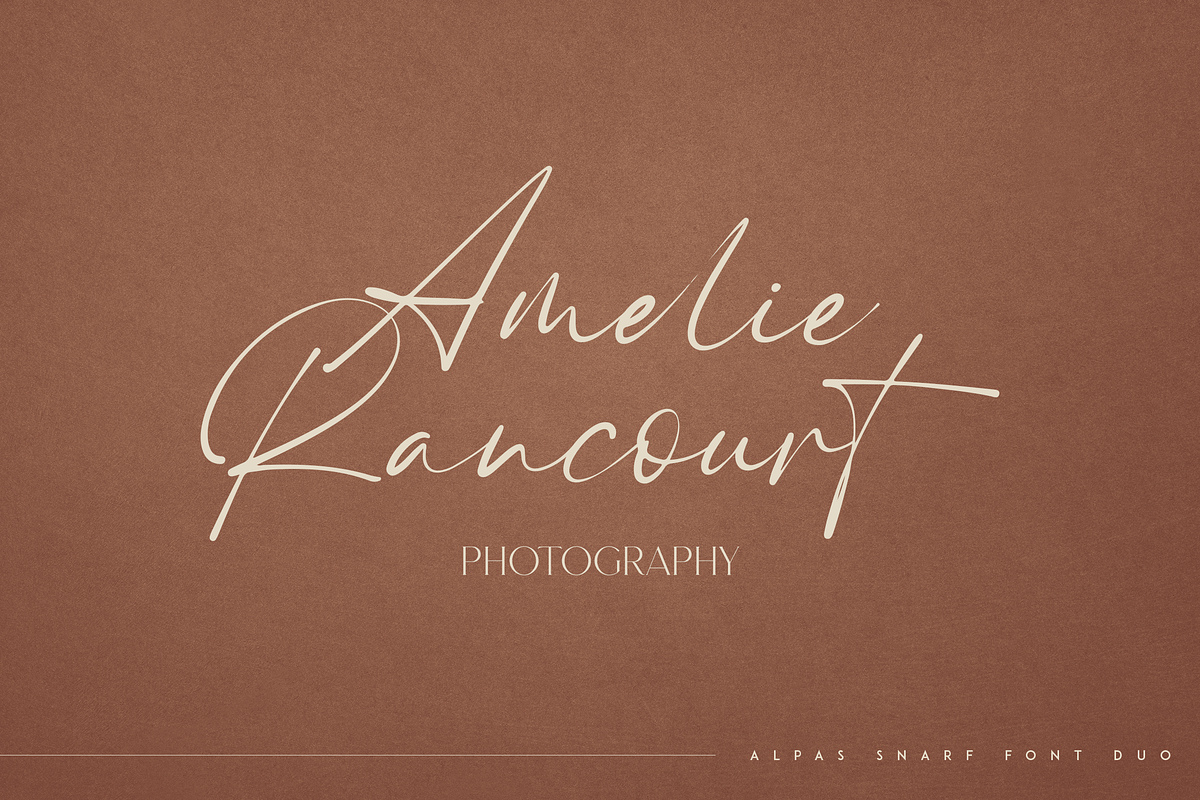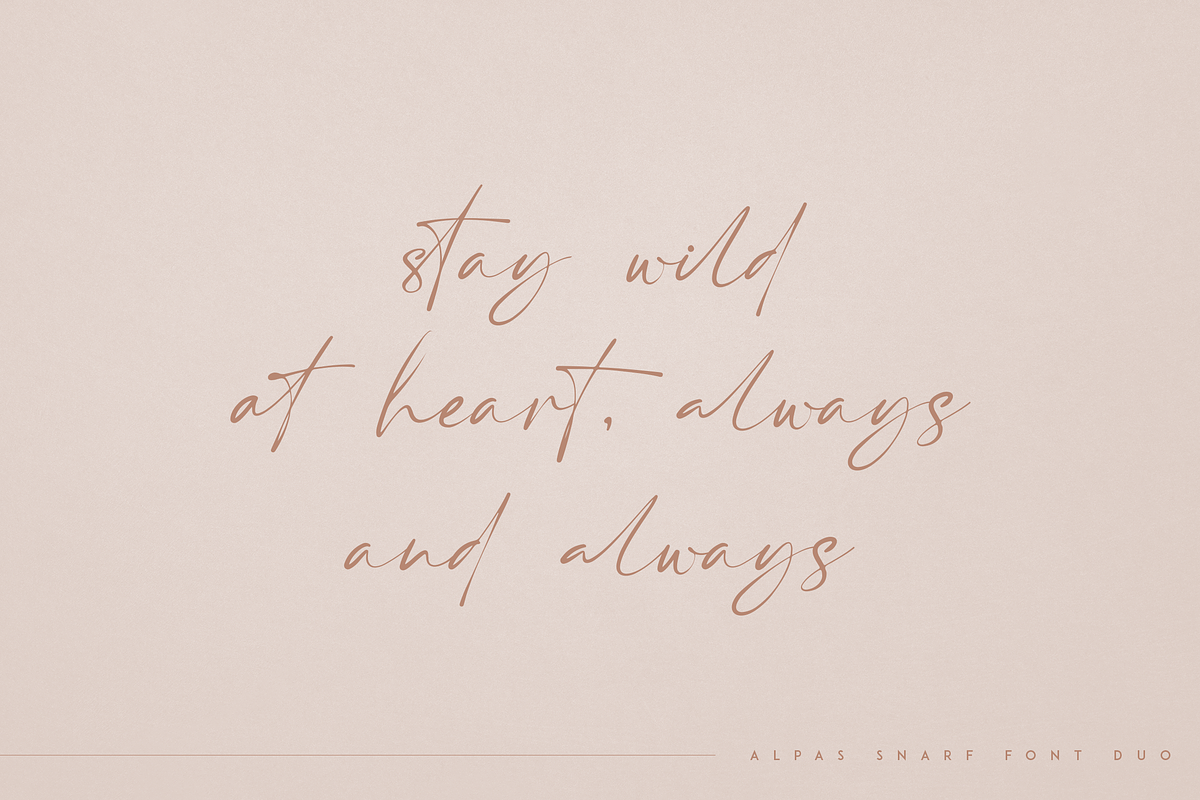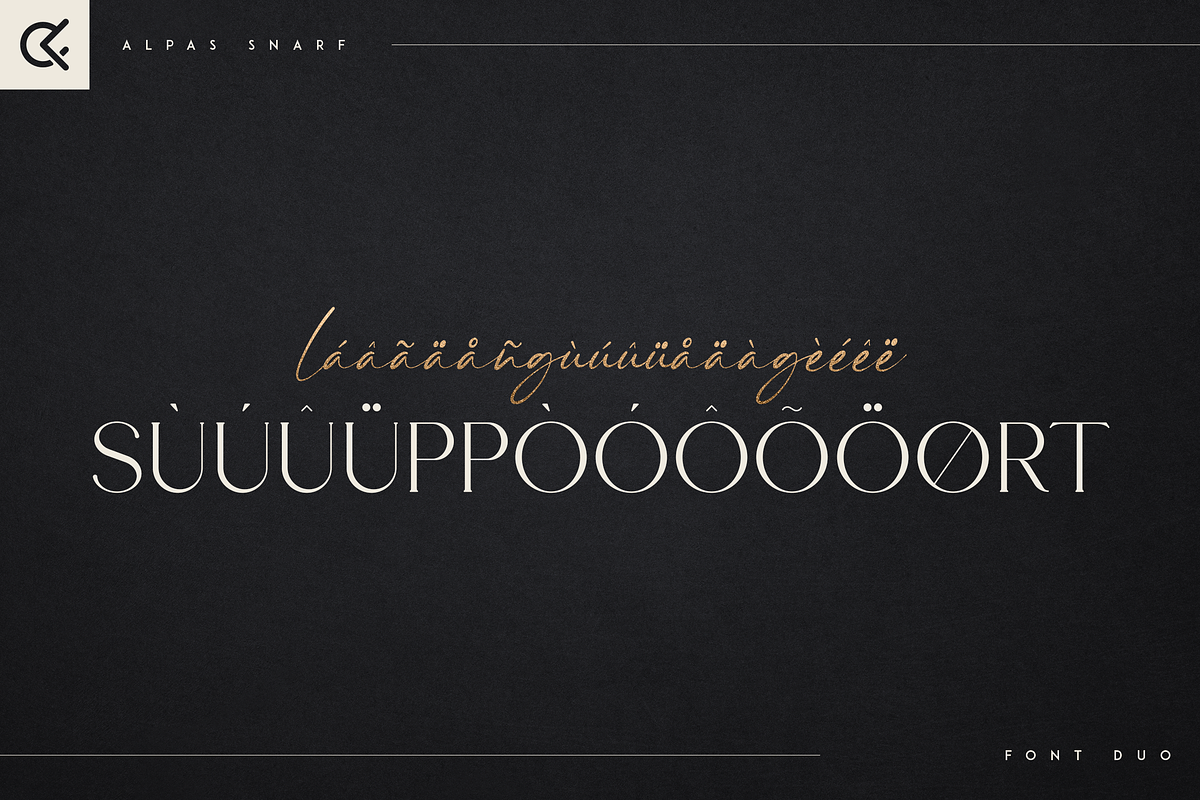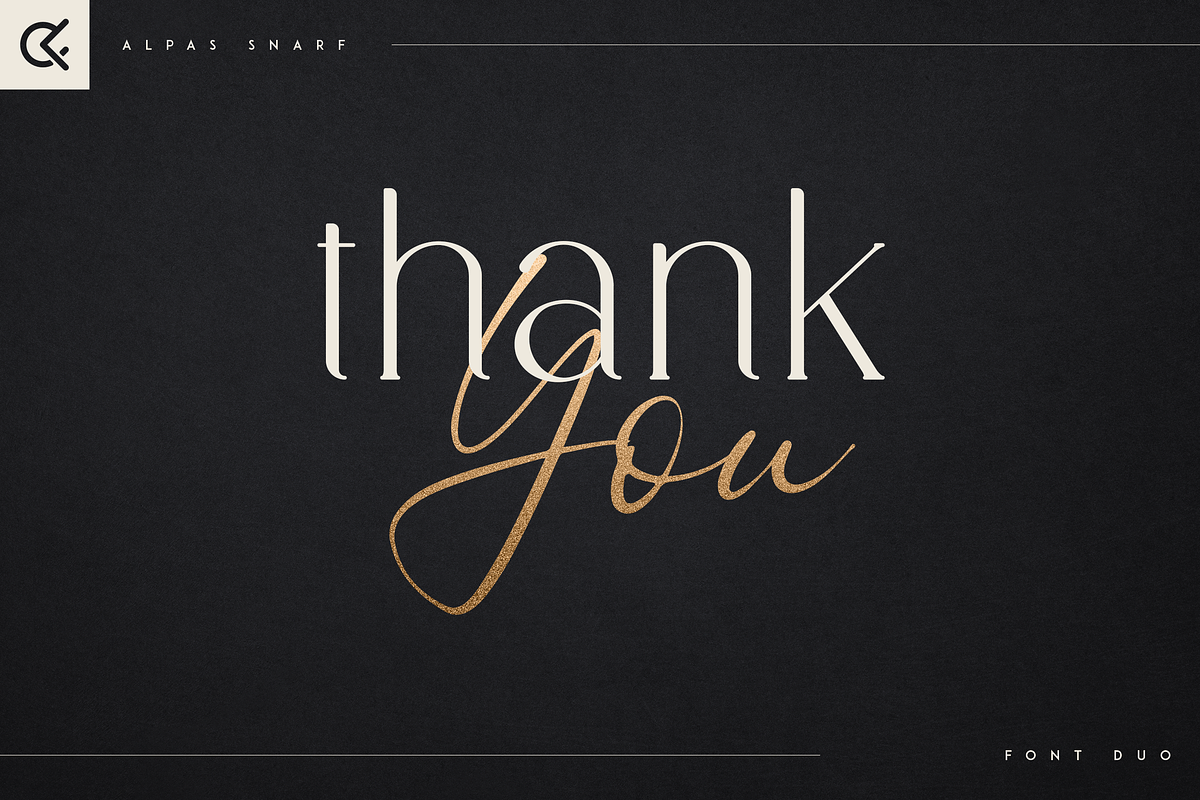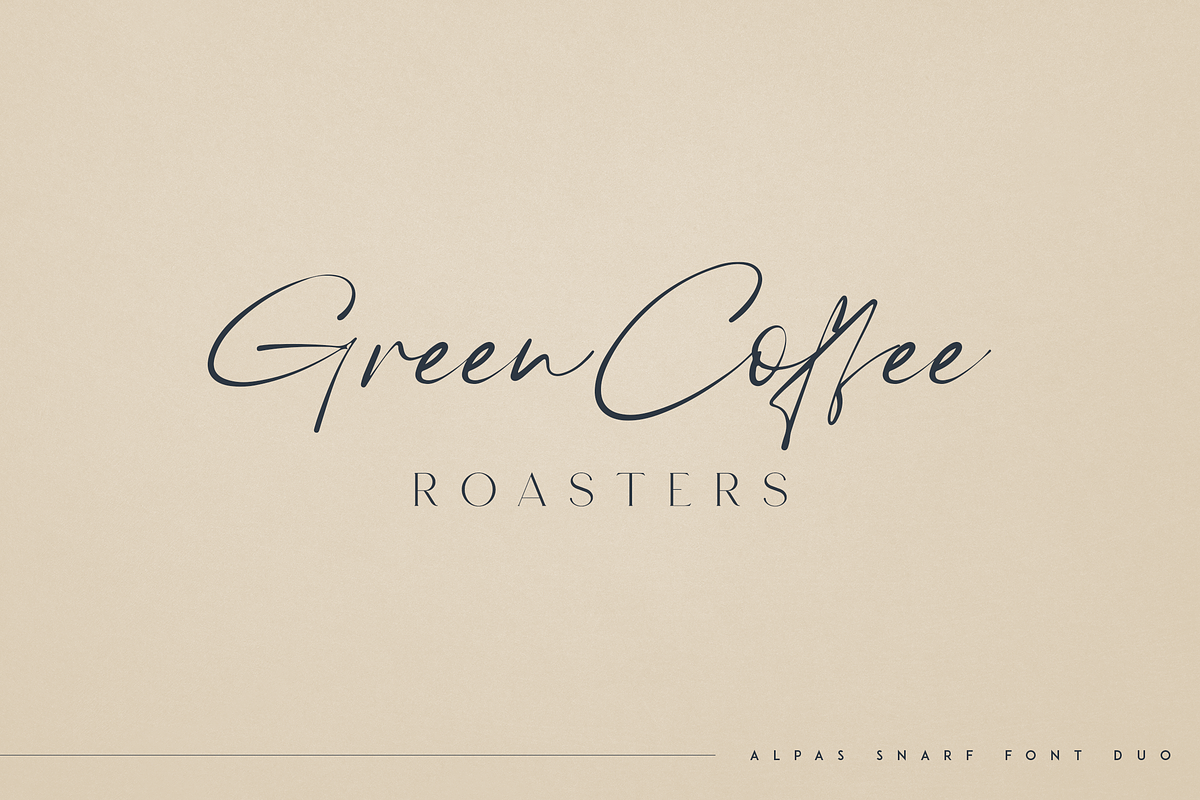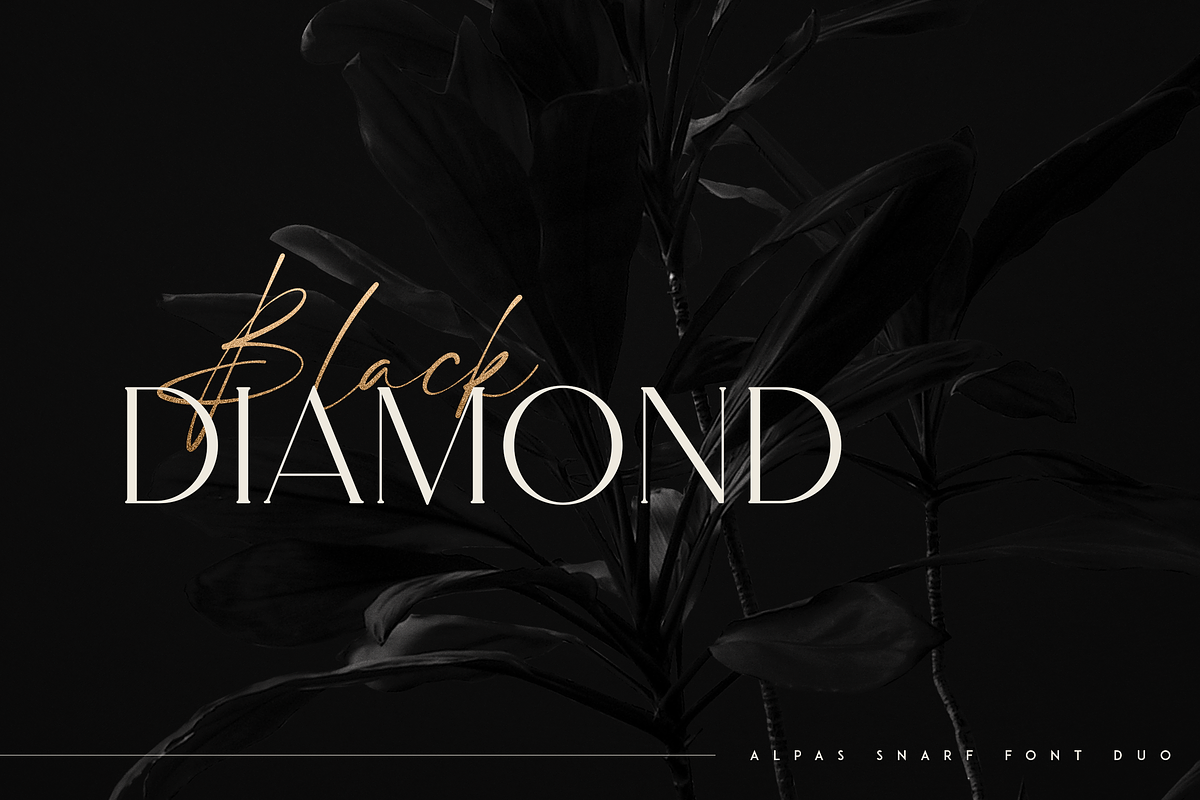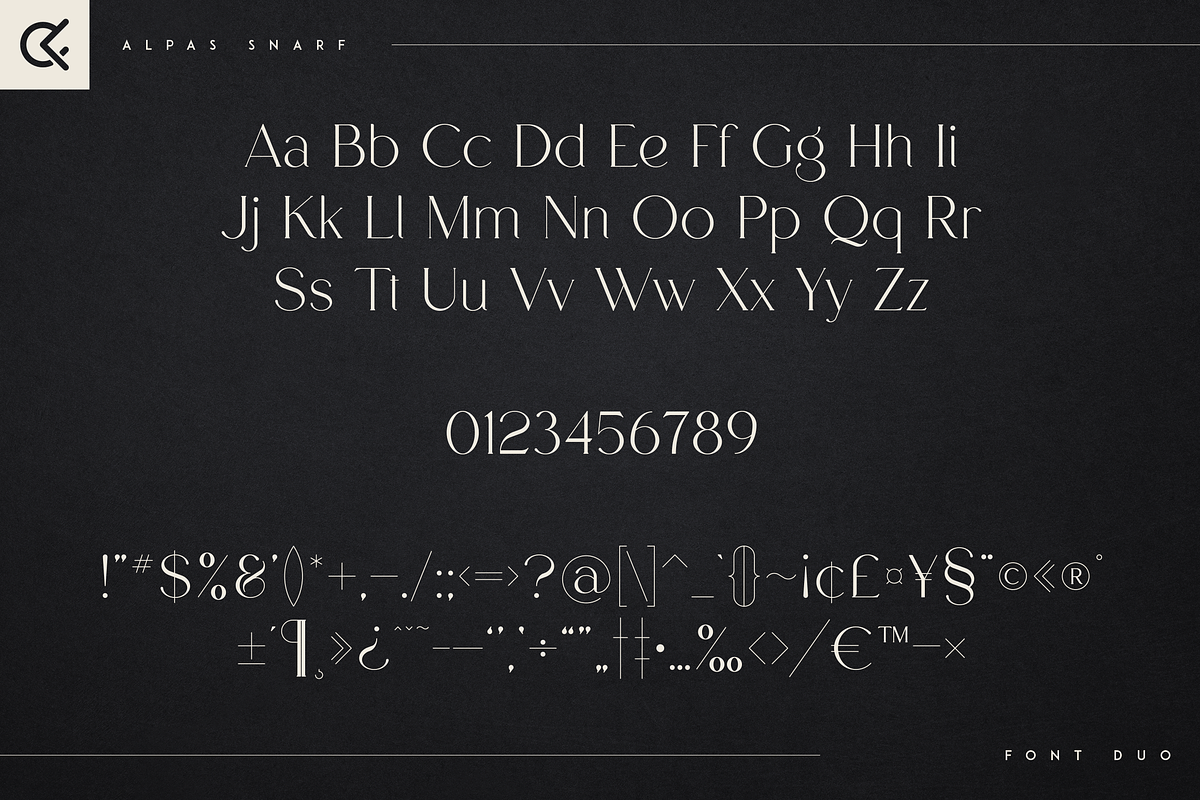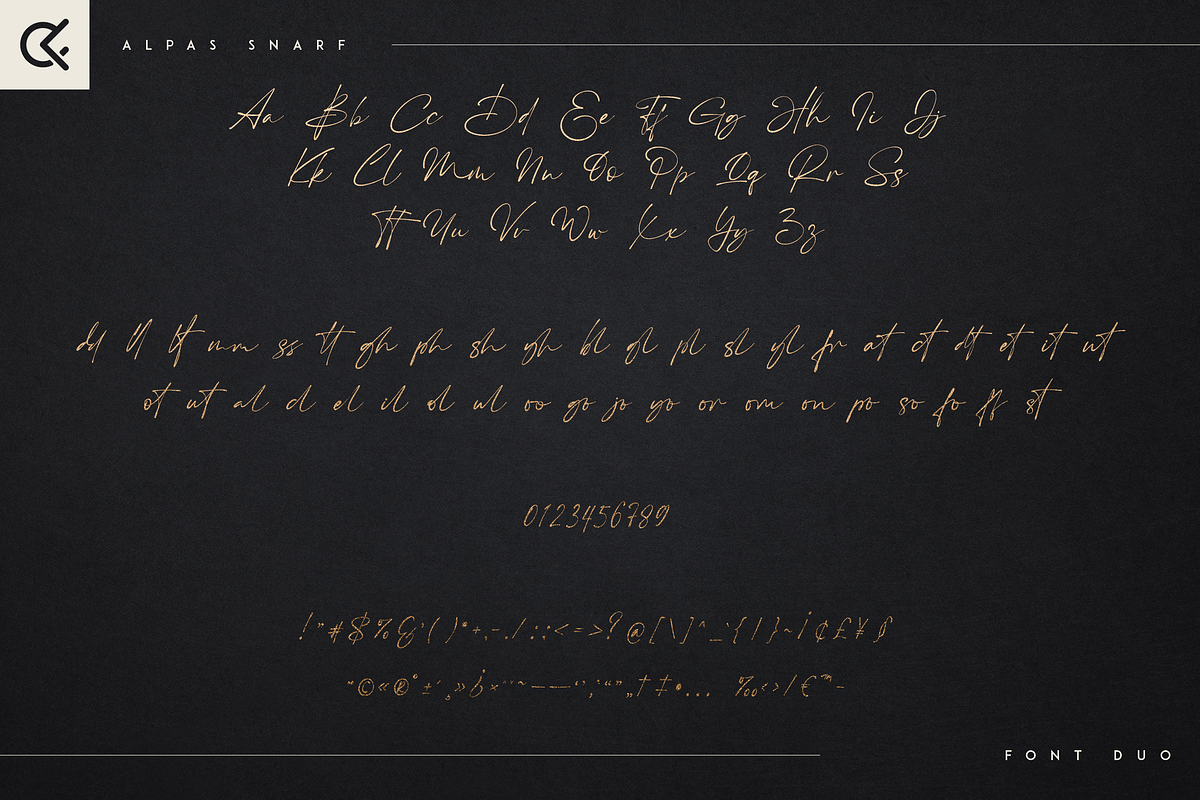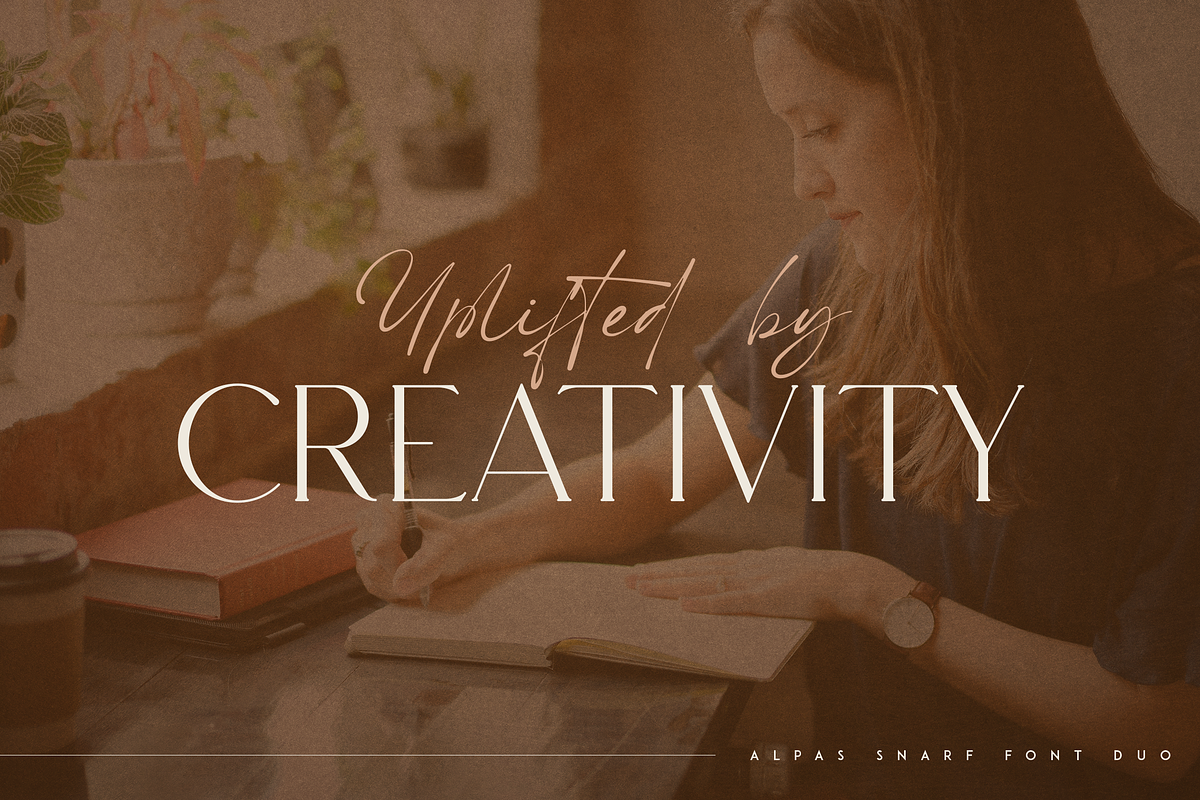
Alpas & Snarf font duo
Introducing Alpas & Snarf font duo
This font duo is luxury and fragile with multilingual support. It's a very versatile font that works great in large and small sizes.
This font is perfect for branding projects, home-ware designs, product packaging, magazine headers - or simply as a stylish text overlay to any background image.
- Uppercase, numeral, punctuation & Symbol
- serif
- italic
- handwritten script